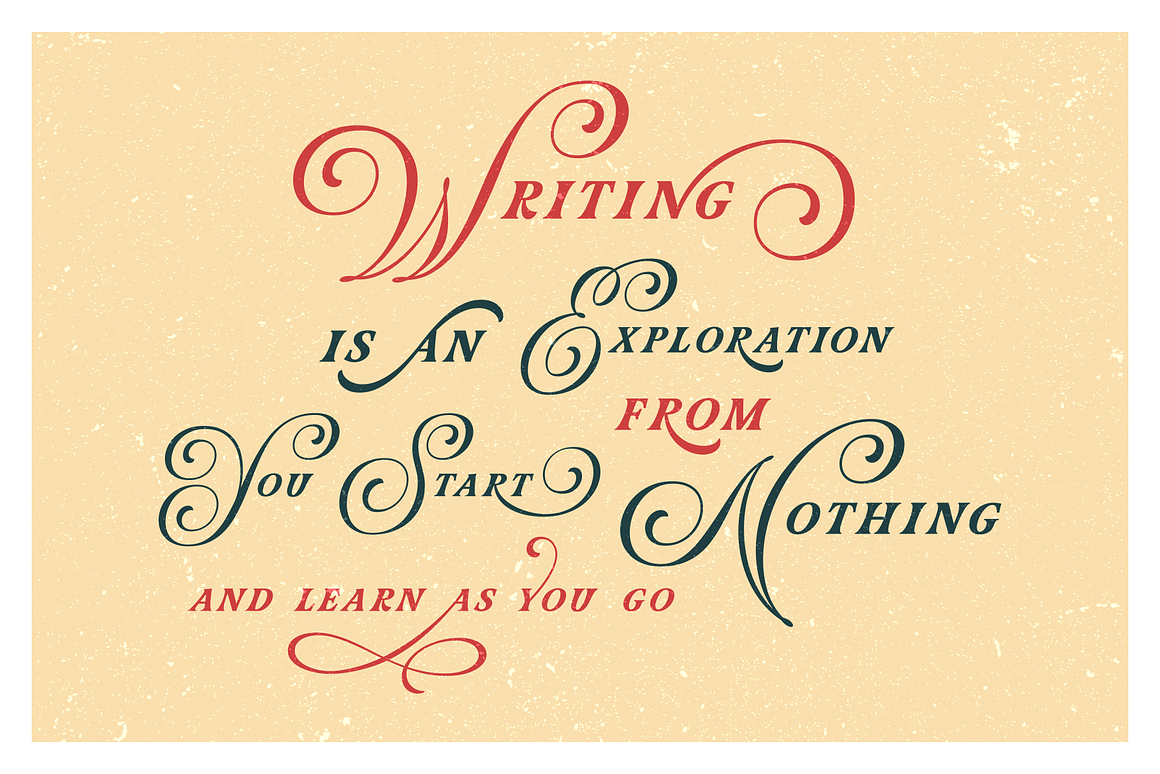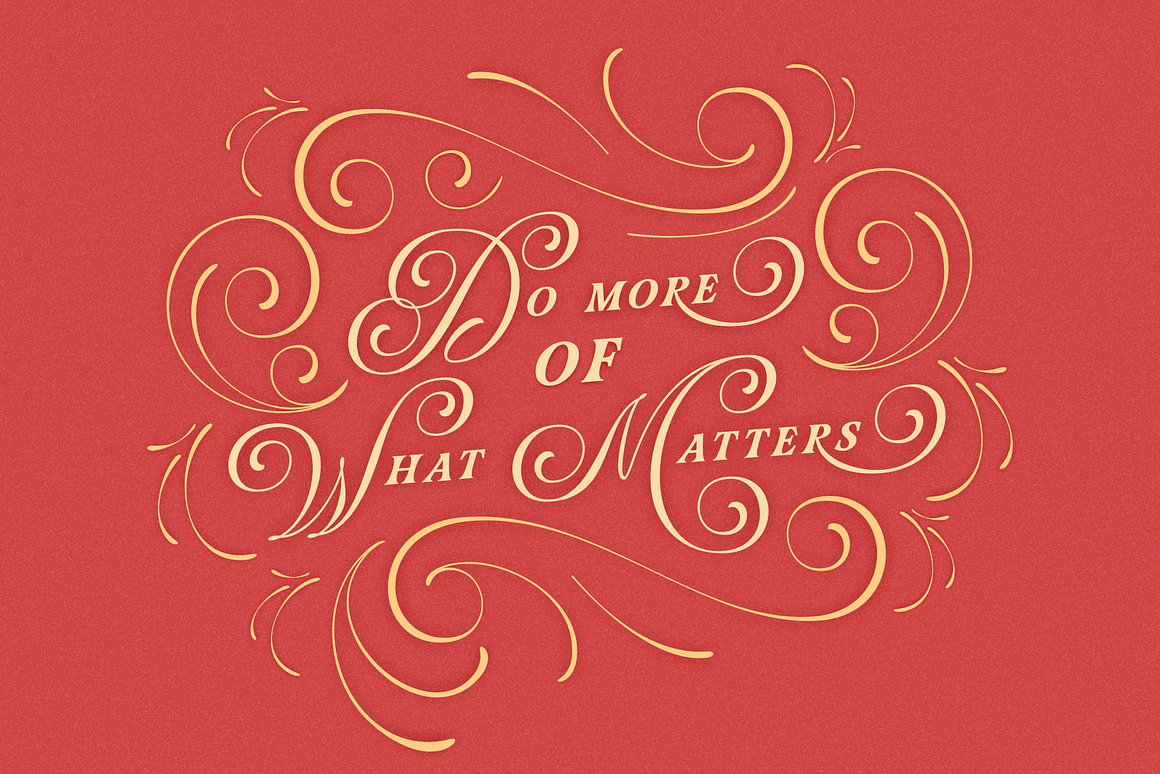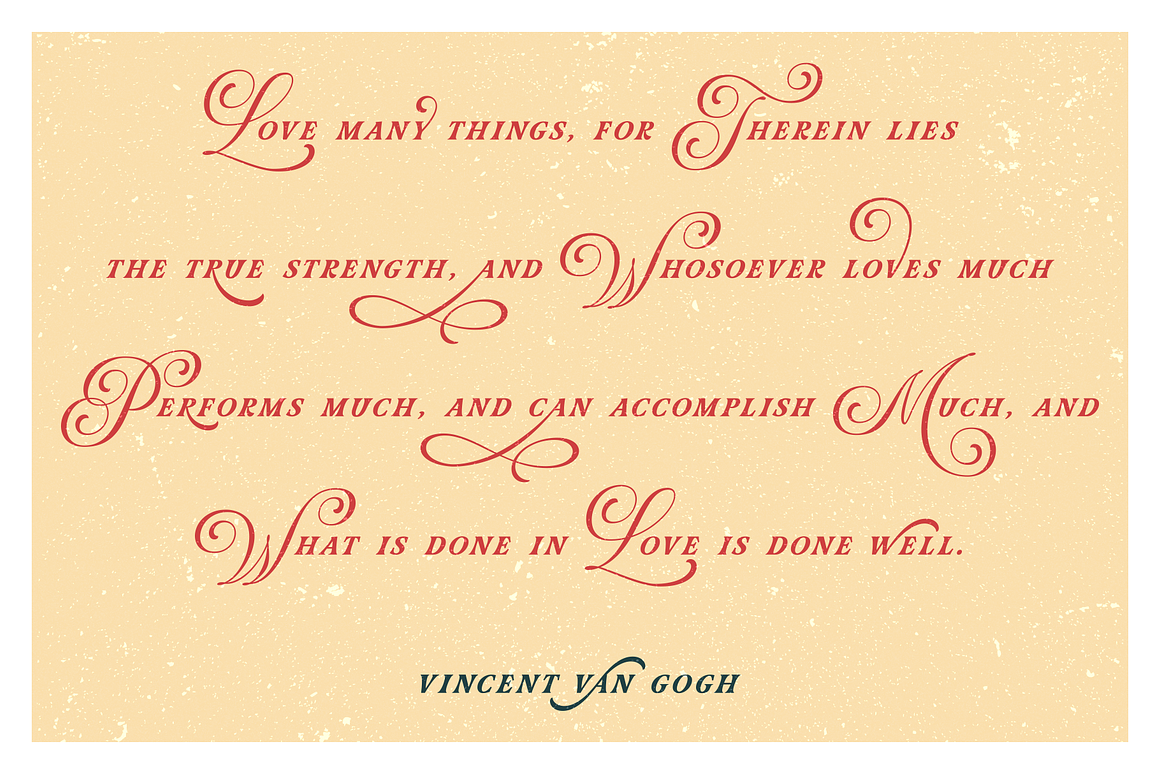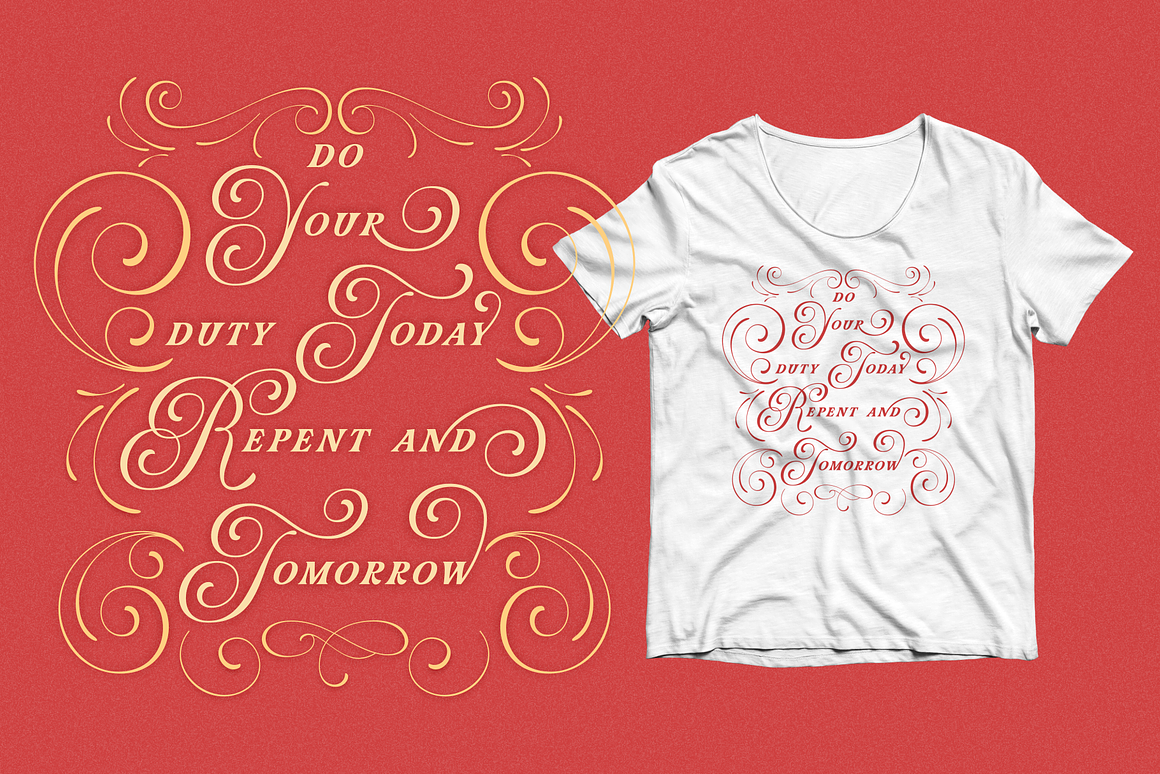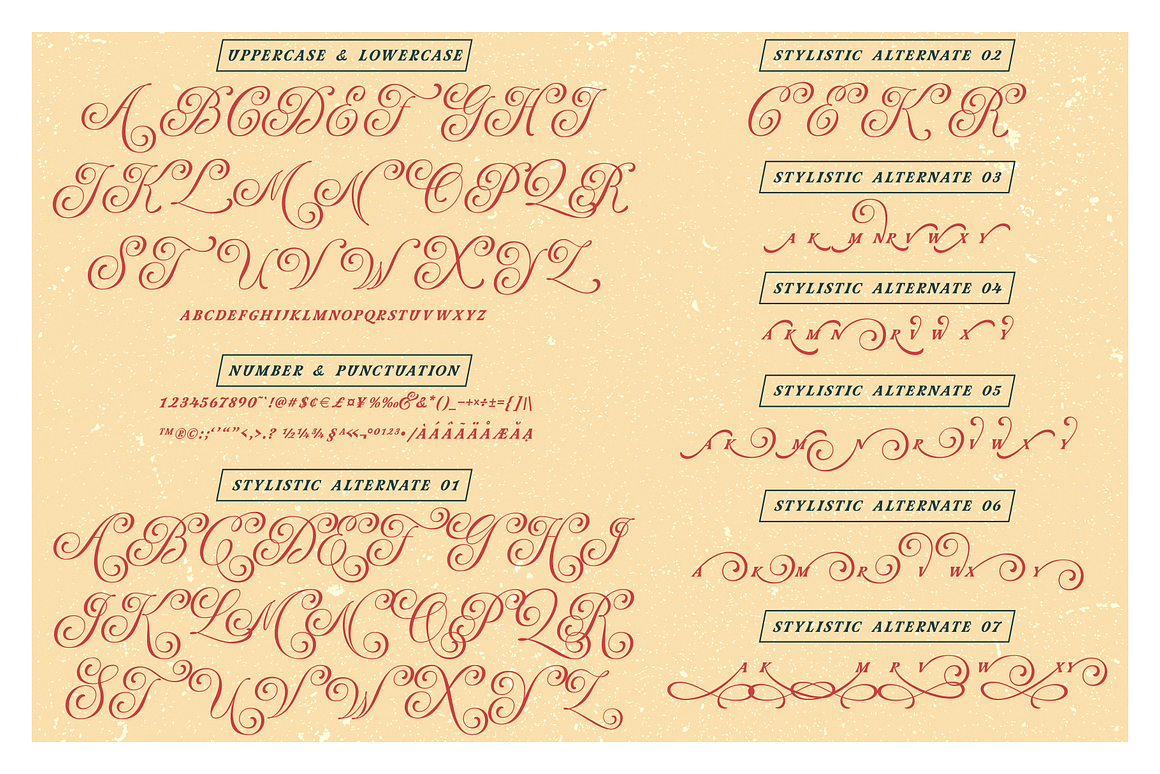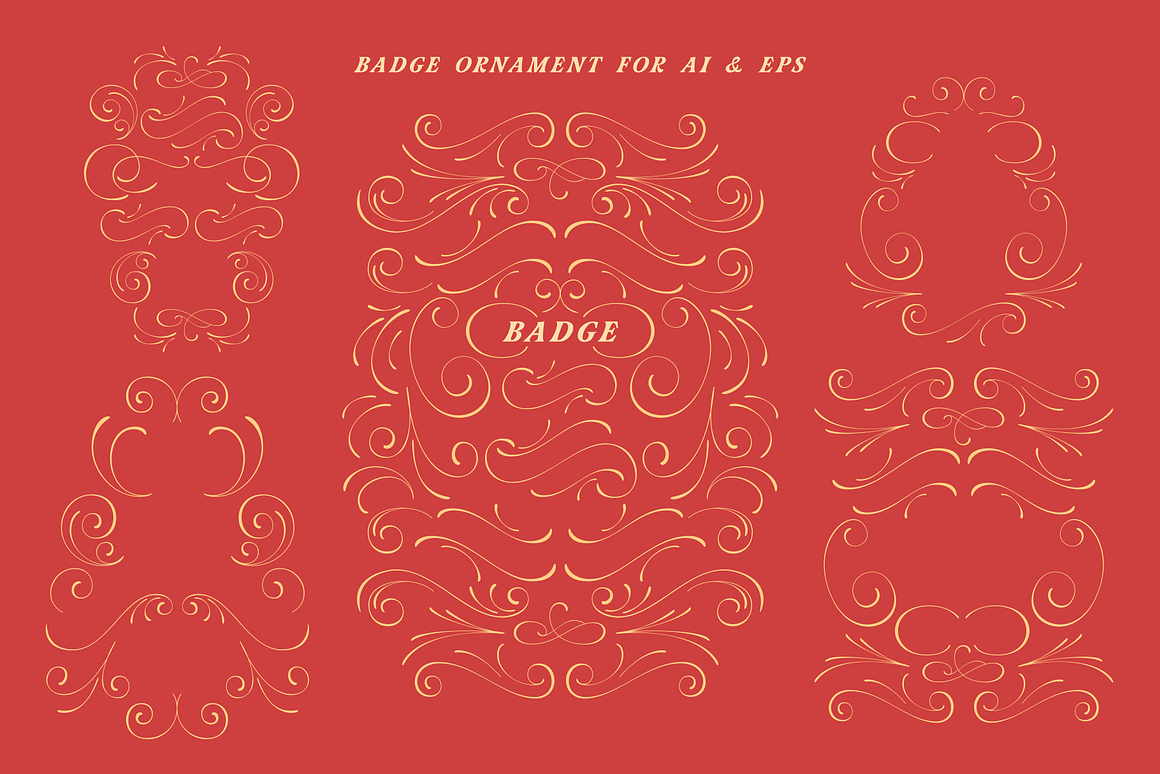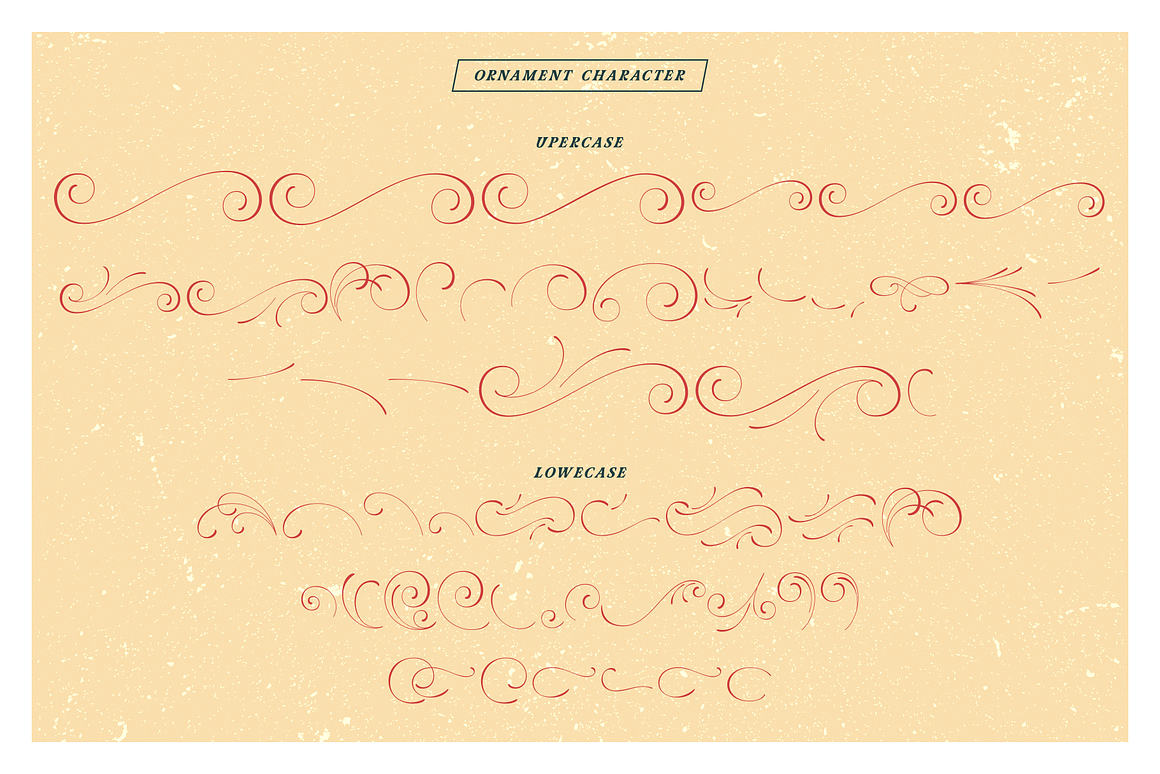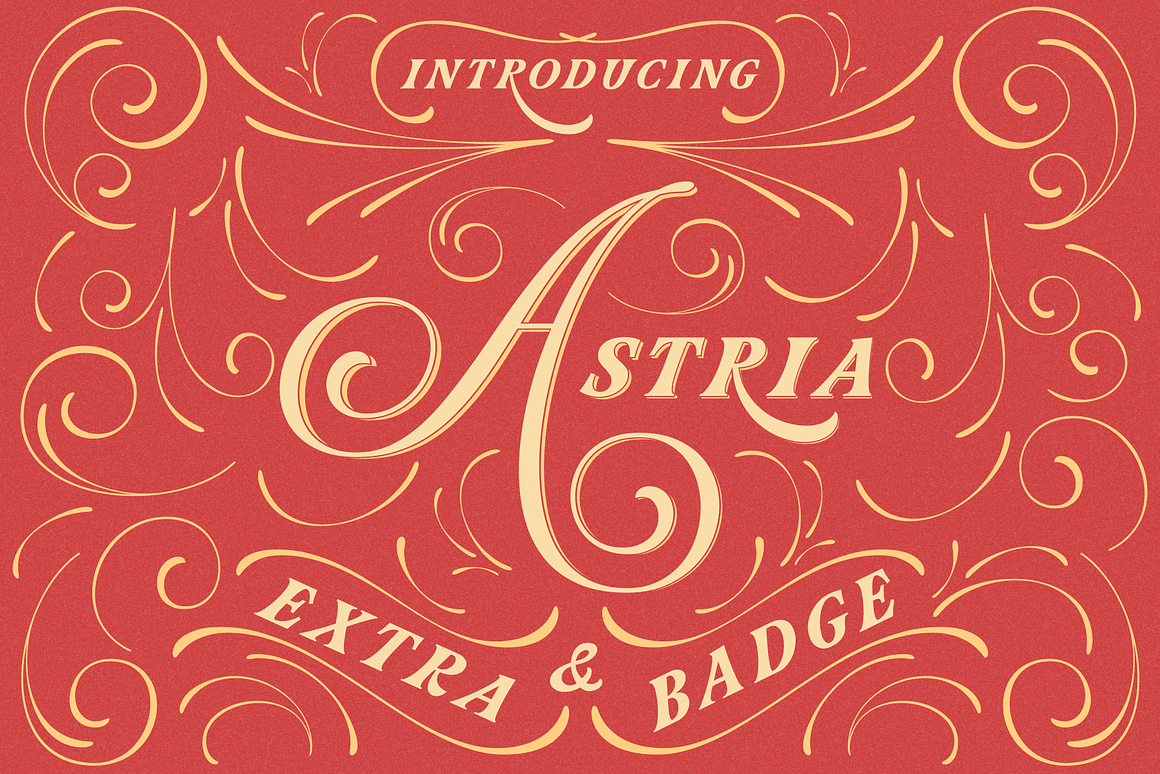
Astria – Fancy Typeface Font
Astria – Fancy Typeface Font is perfect for wedding invitations, luxury branding, greeting cards, social media graphics, and elegant packaging designs. Its stylish and decorative design adds a sophisticated flair to any project.
What makes Astria – Fancy Typeface Font exciting is its elegant, intricate letterforms that combine creativity with readability. The font’s distinctive style ensures your designs feel luxurious and captivating.
The Astria – Fancy Typeface Font family includes Regular, Bold, Italic, and Swash variations, offering designers flexibility to craft intricate and visually stunning typographic compositions.